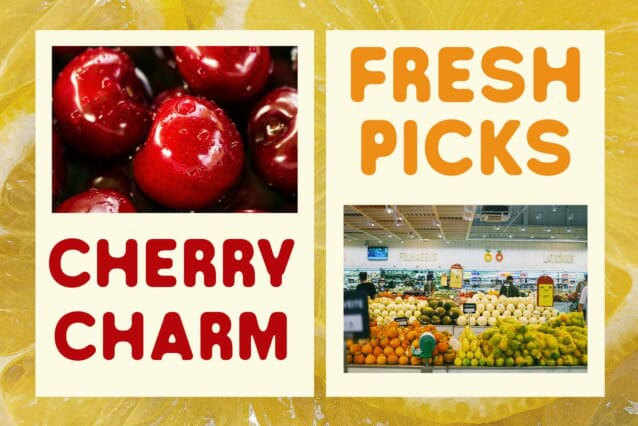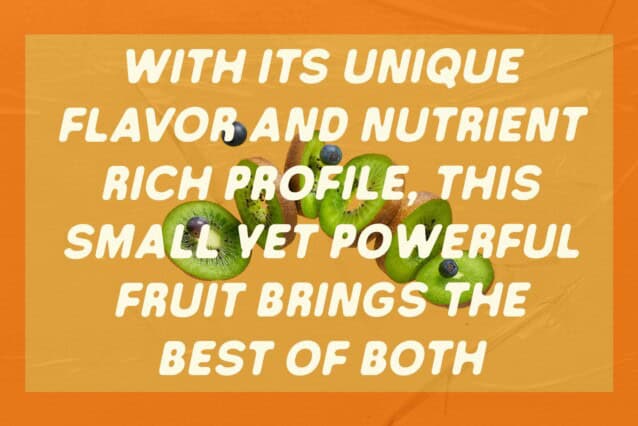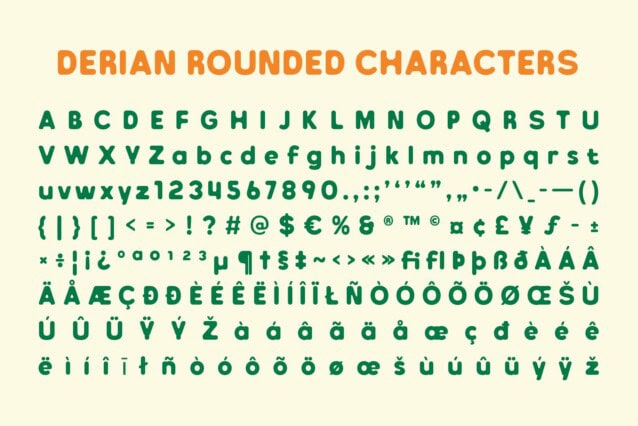
Derian Rounded Font
Derian Rounded Font is a modern sans-serif font that combines contemporary geometric shapes with rounded corners, resulting in a clean, minimalist design. The smooth curves and bold forms create a visually appealing and approachable aesthetic, making it ideal for projects aiming for a modern and cheerful vibe.